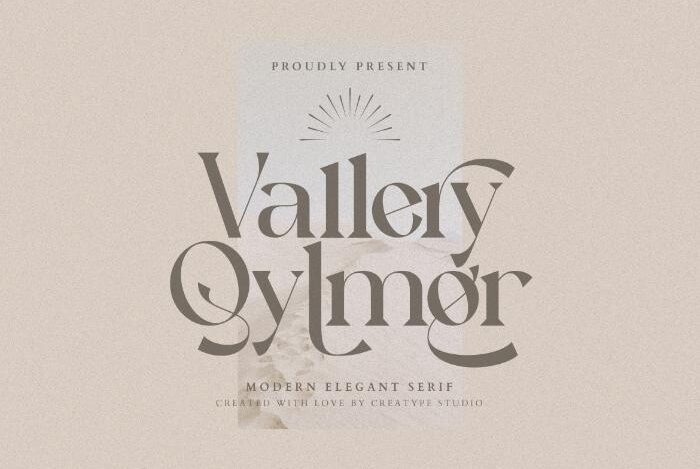
Vallery Qylmor Serif Font — Free Download
Vallery Qylmor — Thick Sans Serif (Freebie)
Add a classy, formal touch to your designs with Vallery Qylmor — a thick, simple, and clean sans serif typeface. This freebie is perfect for branding projects, logos, clothing labels, product packaging, magazine headers, or as a stylish text overlay on photos.